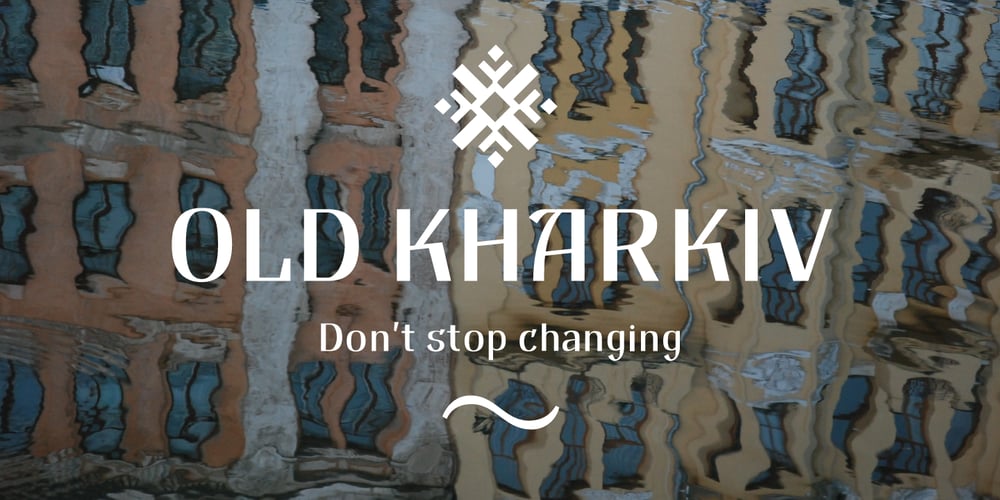
Old Kharkiv Font Family was designed by Bohdan Hdal and published by Bohdan Hdal. Old Kharkiv contains 1 styles and family package options. Old Kharkiv was inspired by the first half of the 20th century photo with a signage on the building of the Ivan Kotlyarevsky Kharkiv National University of Arts. During the development, the font has acquired unique features not from the original signage, for example, drops in uppercase were replaced with sharp serifs. This font contains the letters of all the main European languages, Cyrillic and basic special characters. Some uppercase letters (where allowed their form) have decorative elements (swashes) to use them as drop caps or initials. There are stylistic alternatives for some Ukrainian letters. Also, as a bonus, this font contains up to a dozen graphic elements that you can use in your layout.